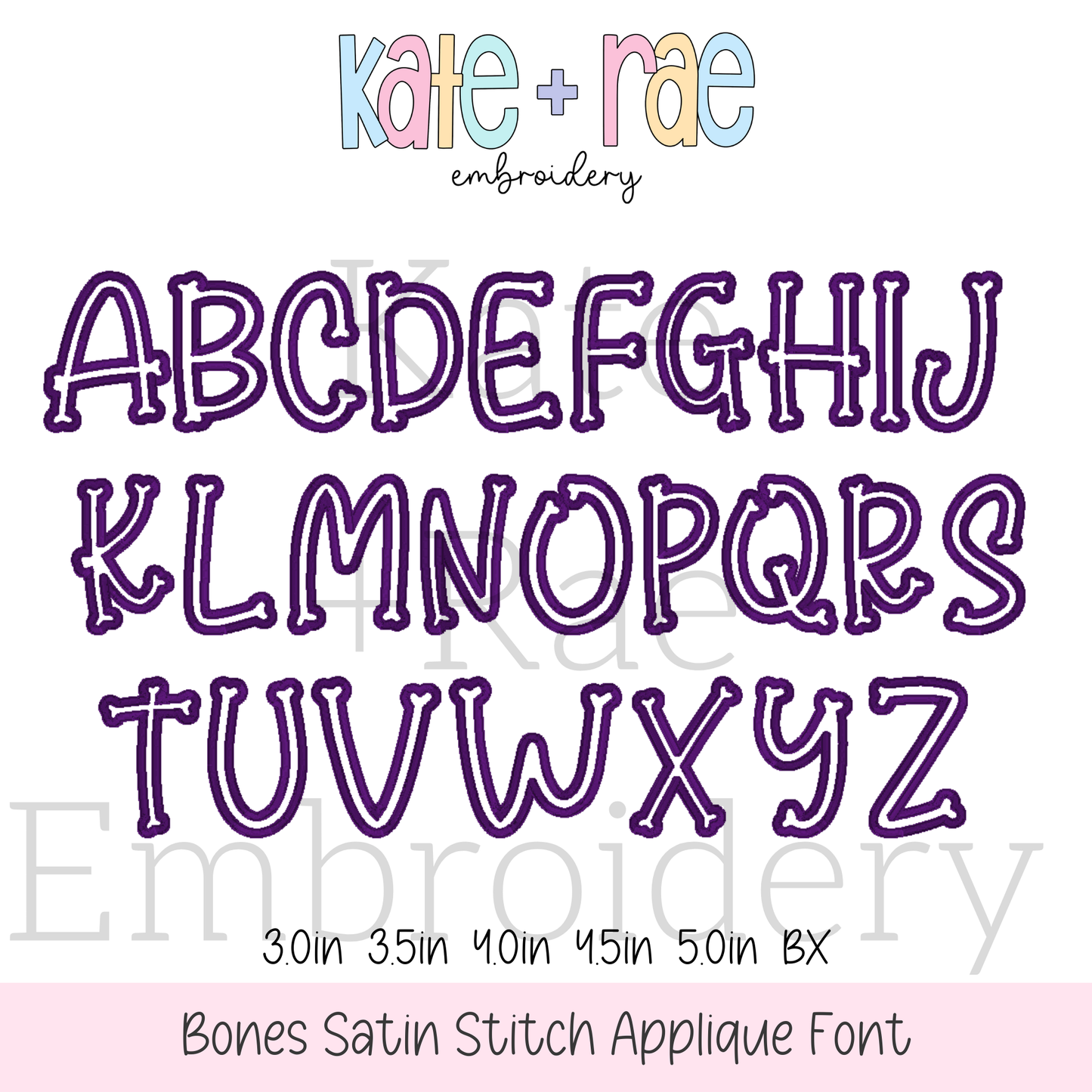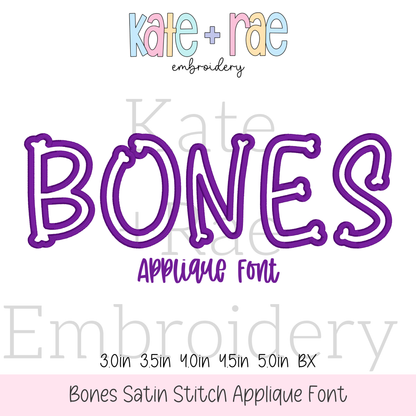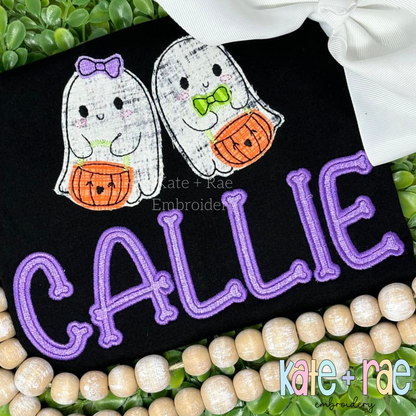
Bones Satin Stitch Applique Font Embroidery Design
Add a spooky touch with the Bones satin stitch applique font! Spell out Halloween names and monograms on fall outfits and costumes.